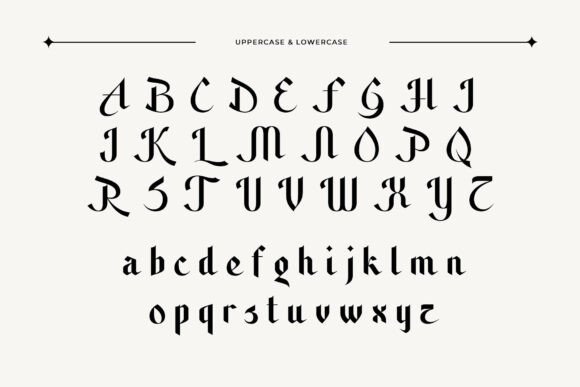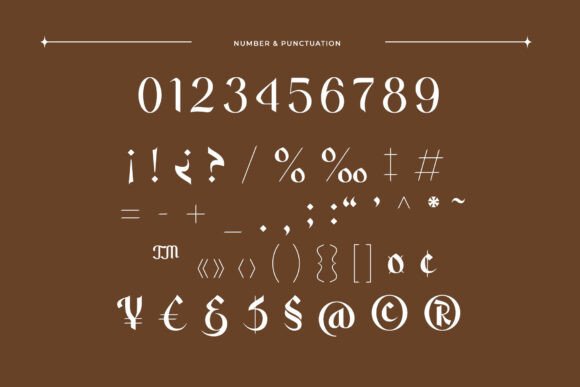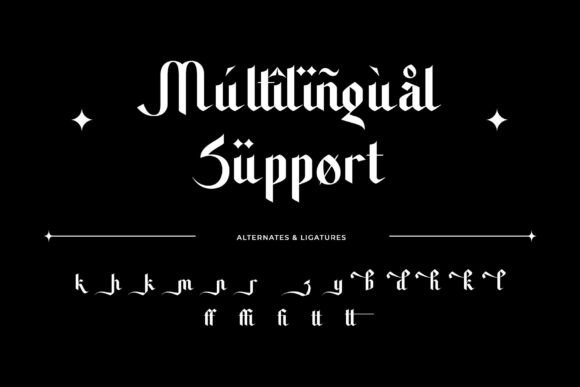
Introduction to Safeya Font
Make a statement with Safeya, a bold display typeface designed for striking headlines and impactful branding.
Safeya combines modern style with a hint of gothic influence, giving your designs a unique, fashionable, and editorial-ready aesthetic Whether you’re working on magazine covers, luxury branding, fashion campaigns, or packaging, Safeya adds a dramatic and stylish touch.